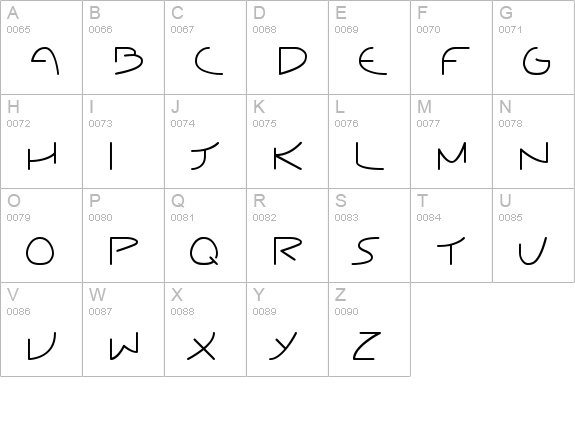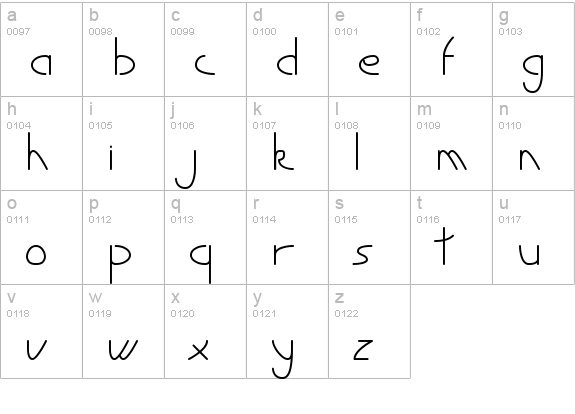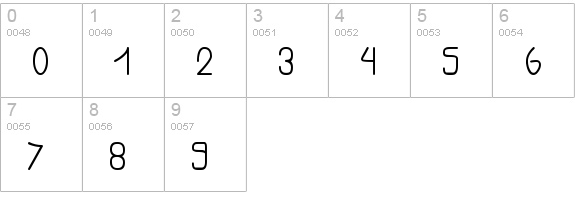
Tibet Font Details
Introducing Tibet Font, a captivating and versatile typeface that effortlessly combines elegance with a touch of modernity. This font is perfect for adding a unique and sophisticated look to any design project, from stylish logos to eye-catching headlines. Tibet Font features a beautifully balanced letterform, with clean lines and subtle curves that exude a sense of timeless elegance. Its intricate details and well-crafted strokes make it a true work of art, capturing attention and leaving a lasting impression. This font offers a wide range of styles and weights, allowing you to experiment and find the perfect fit for your creative vision. Whether you're aiming for a bold and impactful statement or a delicate and refined touch, Tibet Font has got you covered. But what makes Tibet Font even more remarkable is that it is available for free download exclusively at FontsMarket.com. Yes, you read that right - this stunning font can be yours without spending a dime. FontsMarket.com is a trusted platform for typography enthusiasts, where you can find a vast collection of high-quality fonts that cater to every design need. So, why wait? Don't miss out on the opportunity to enhance your projects with the elegance and versatility of Tibet Font. Download it for free at FontsMarket.com today and let your creativity soar to new heights.